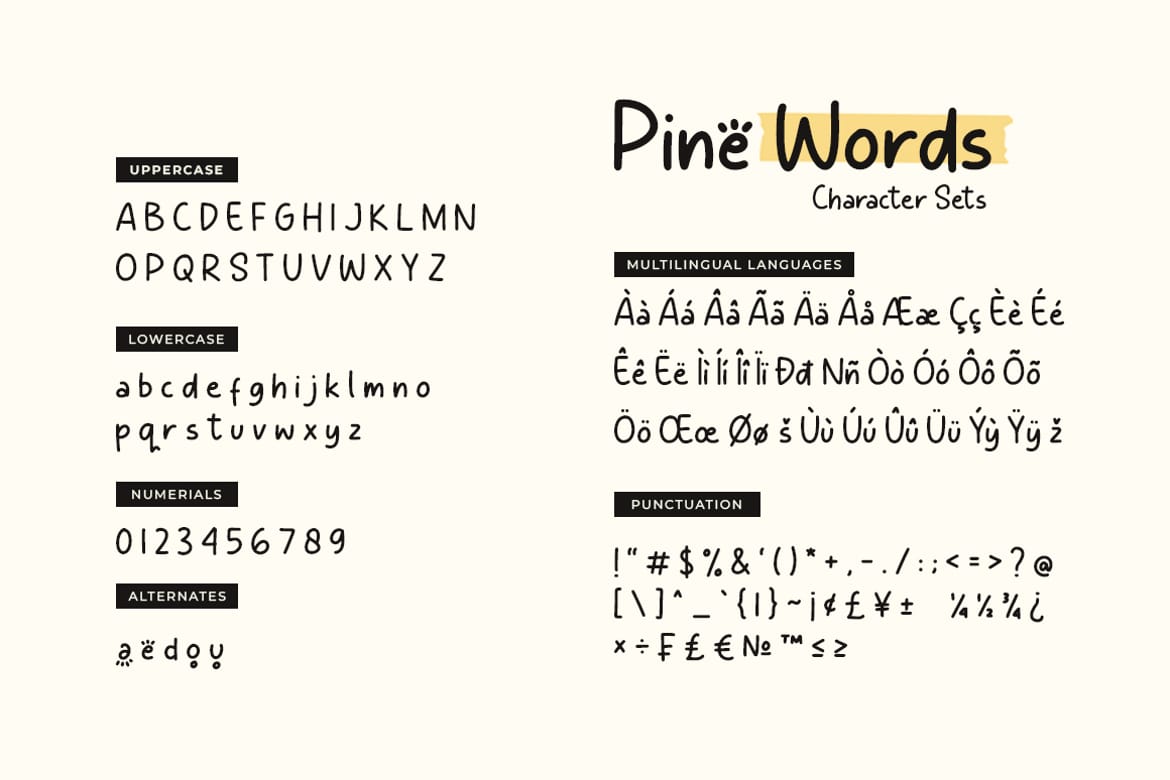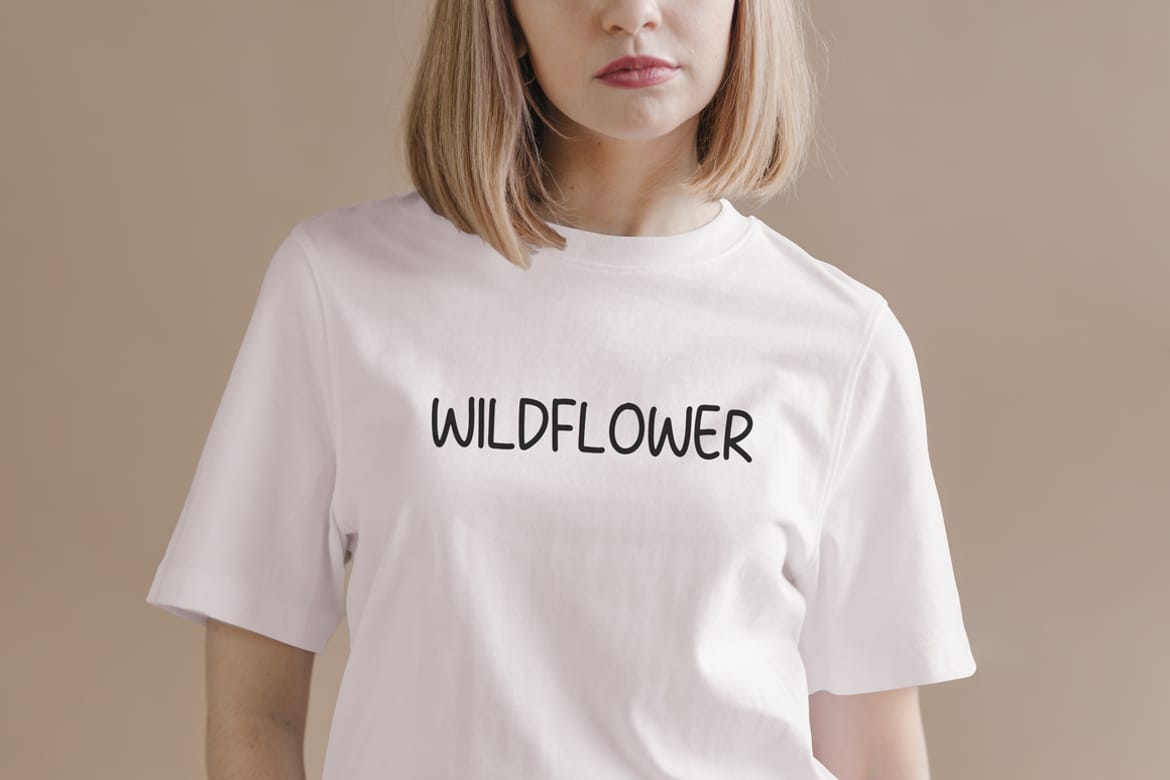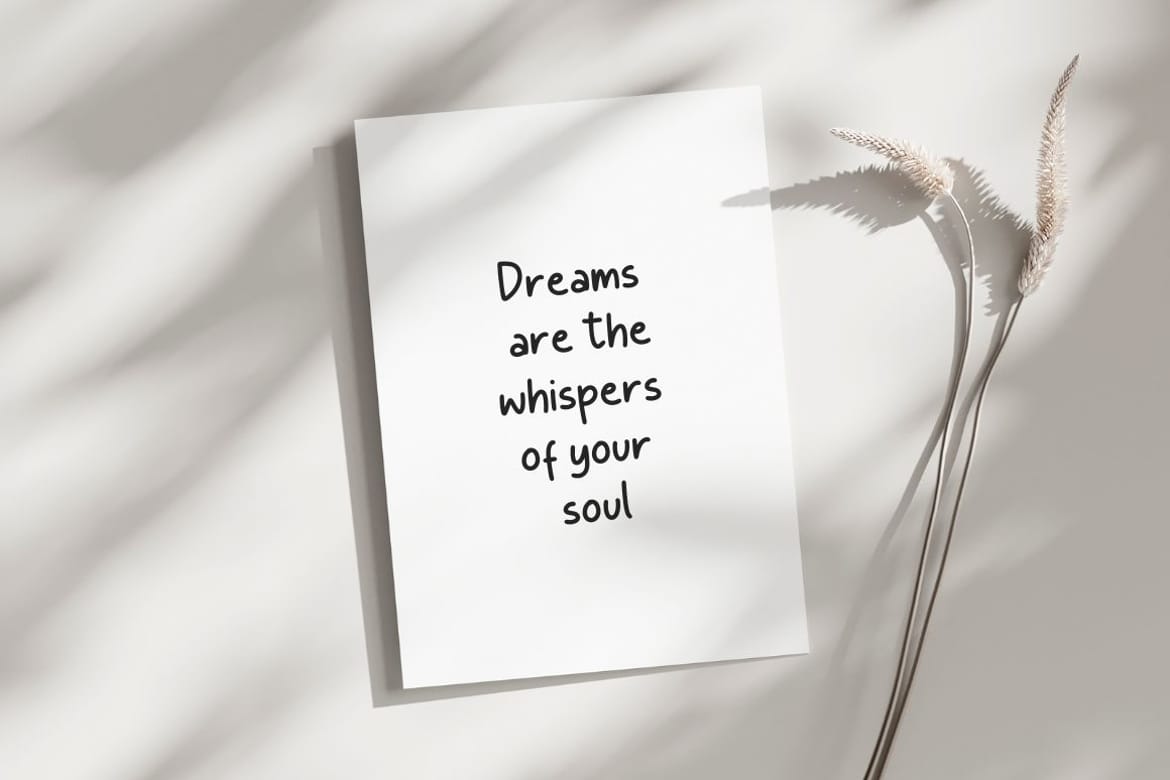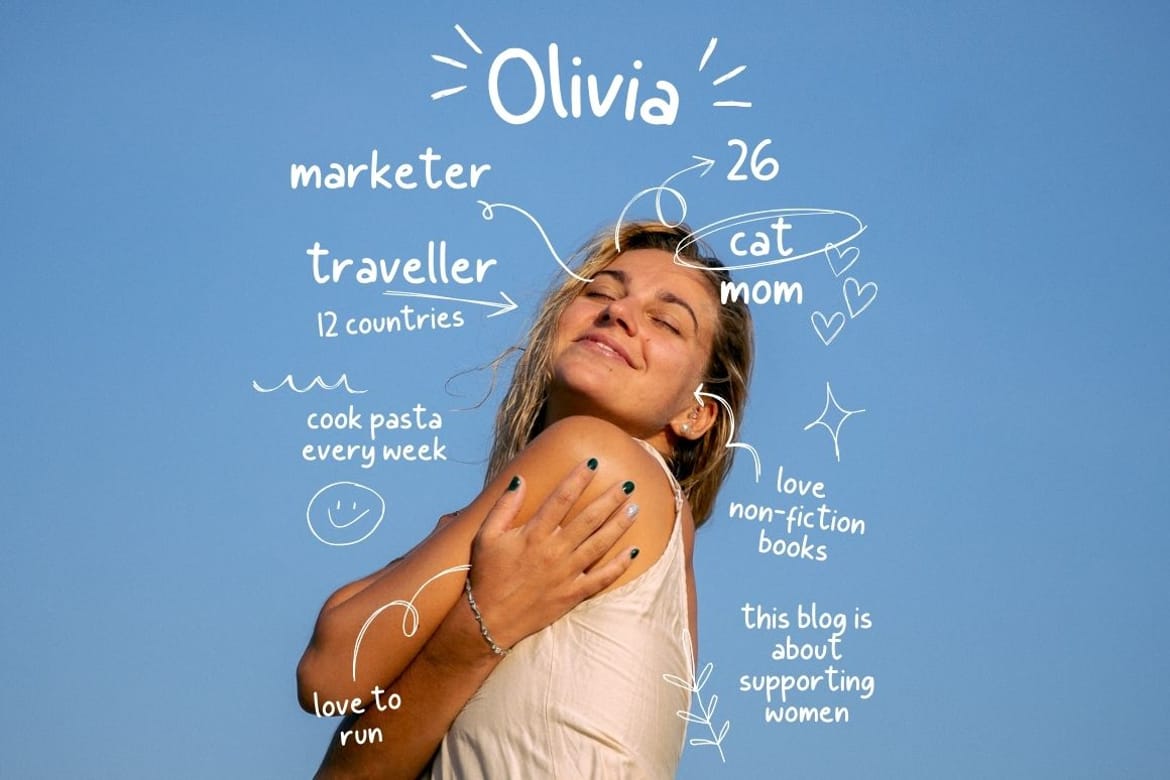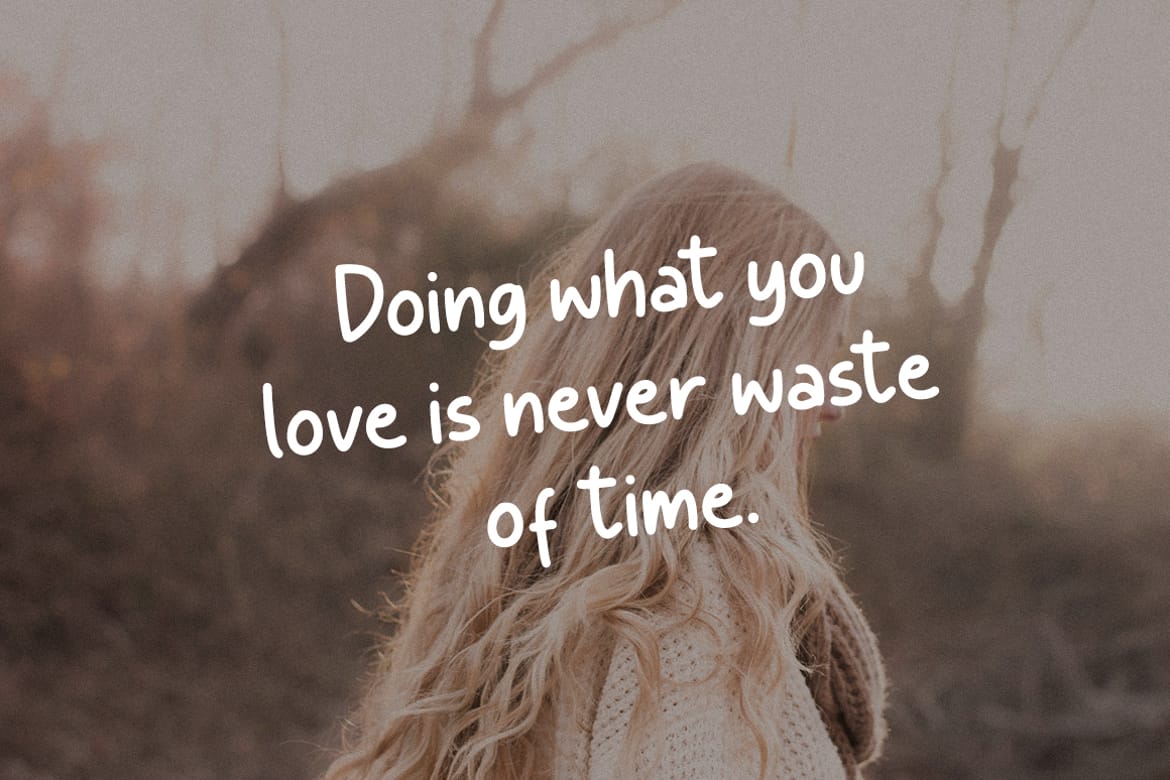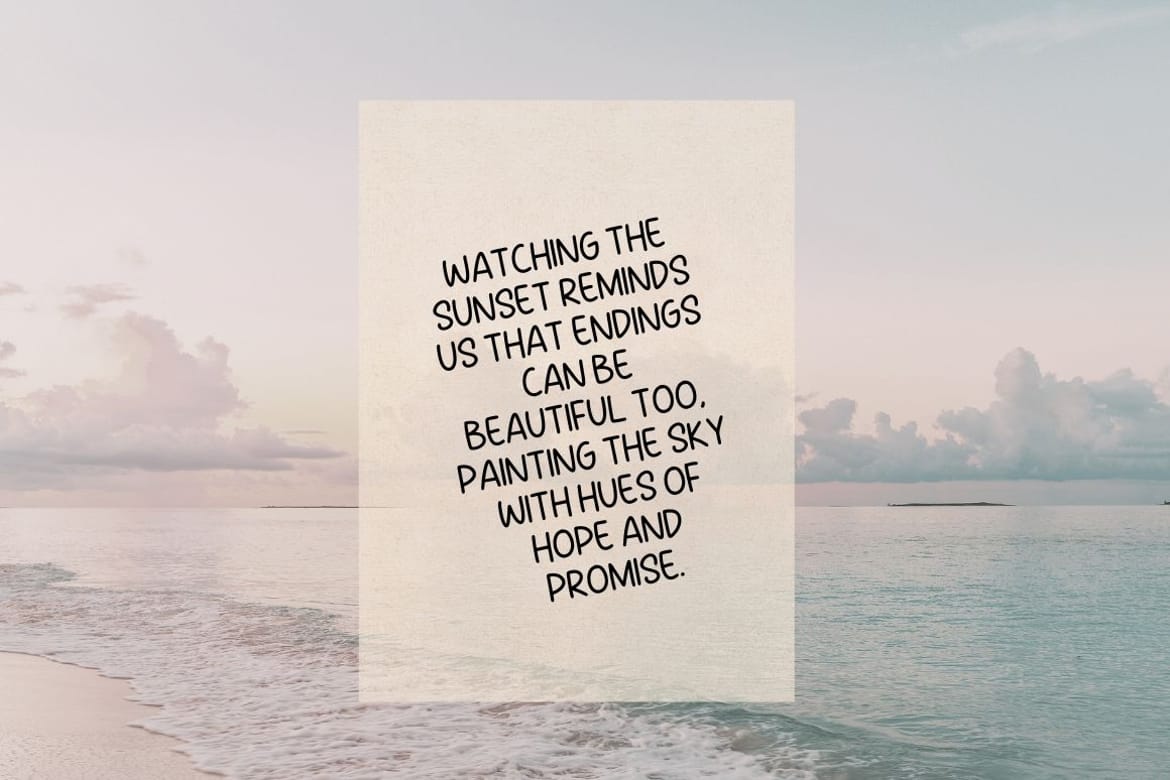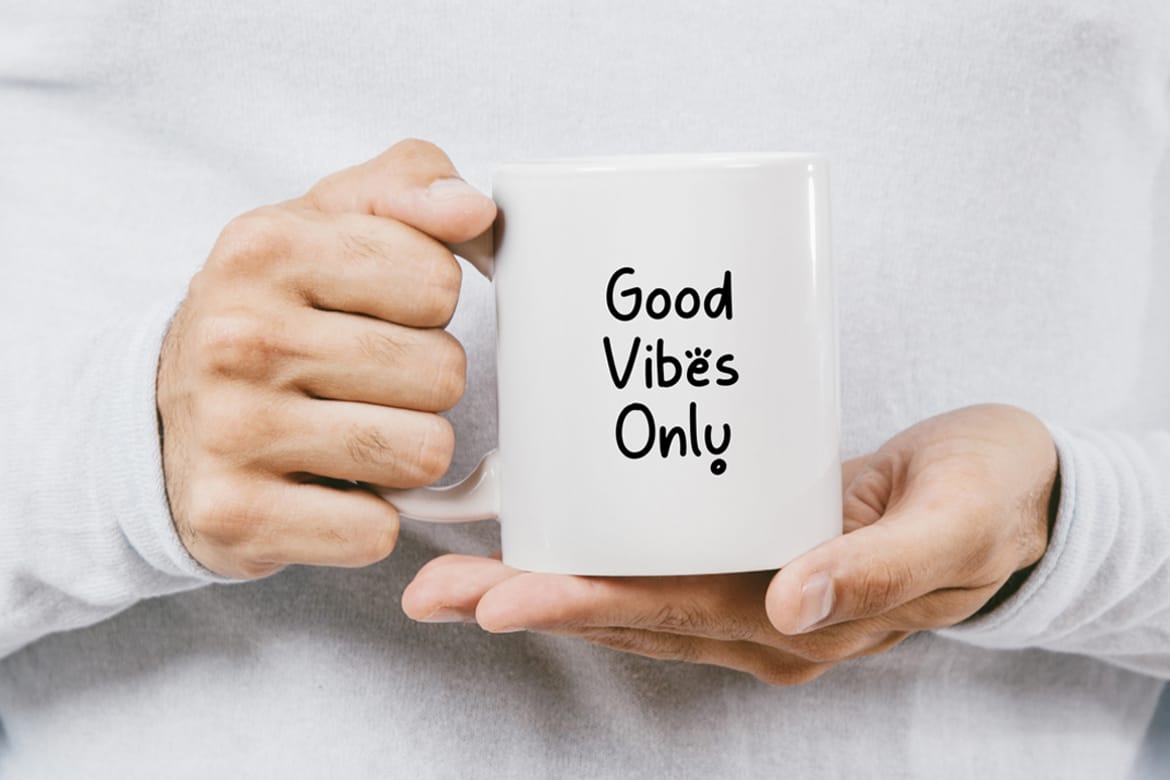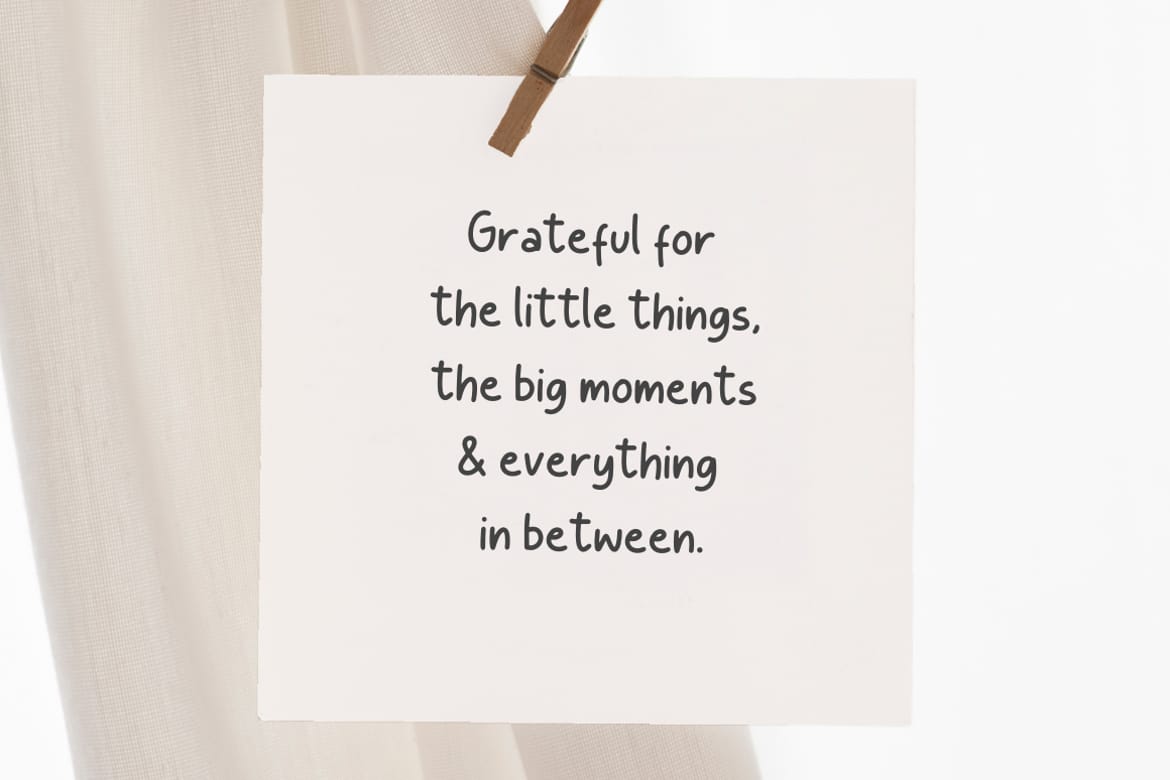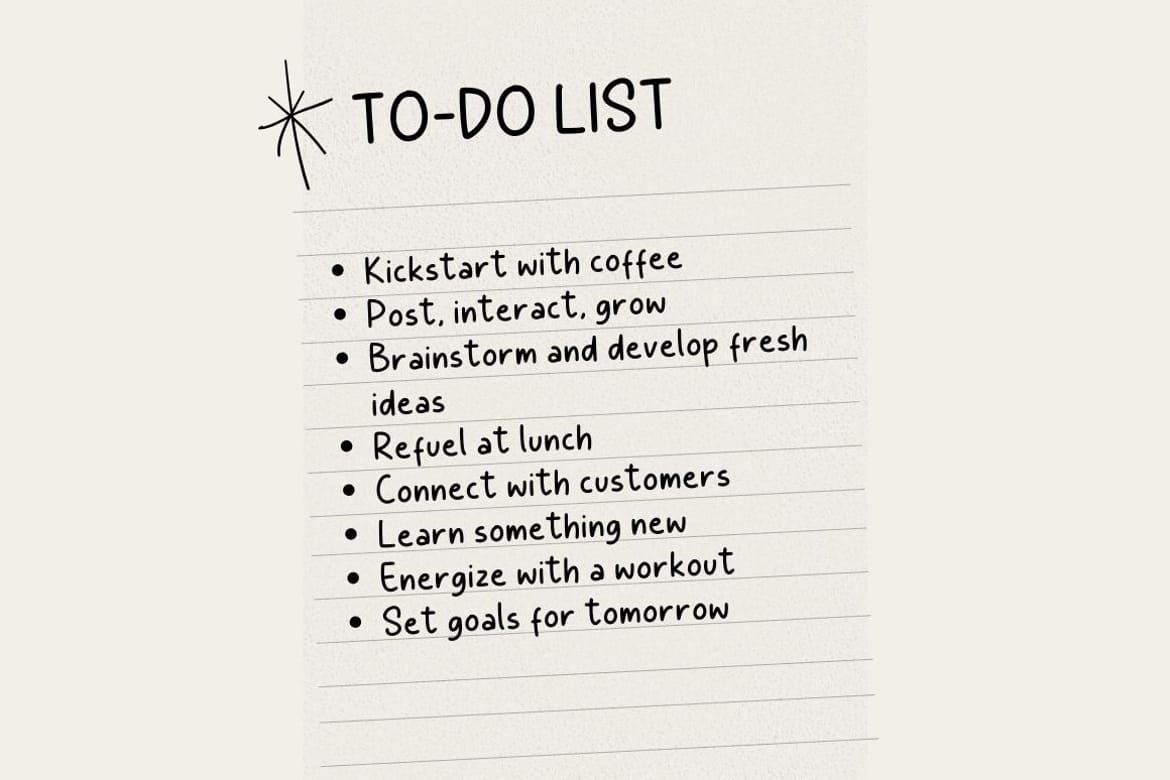
Pine Words is a simple handwritten font that brings a playful, friendly, and natural feel to your creative projects. Designed with smooth curves and clean handwritten strokes, this font is perfect for branding, social media posts, logos, quotes, invitations, packaging, children’s designs, and casual typography needs. Its charming handwritten style creates an authentic and approachable look while remaining easy to read across both digital and print designs.
With its modern handwritten aesthetic, Pine Words works beautifully for creative businesses, lifestyle branding, DIY projects, greeting cards, posters, and stylish marketing materials. The balanced letterforms and soft character shapes make it versatile for both professional and personal use.
Whether you want to create eye-catching headlines or add a warm personal touch to your designs, Pine Words delivers a fun and elegant handwritten appearance that stands out effortlessly.